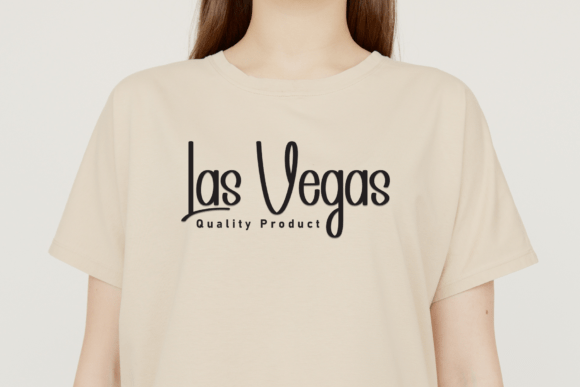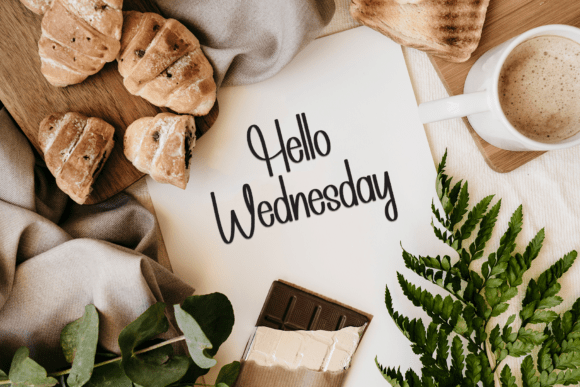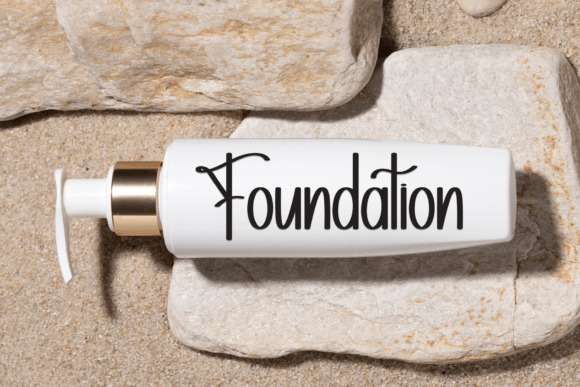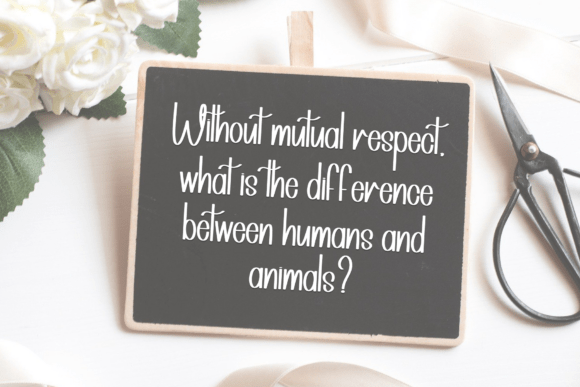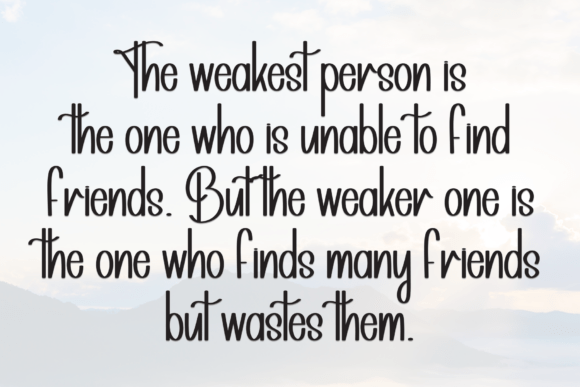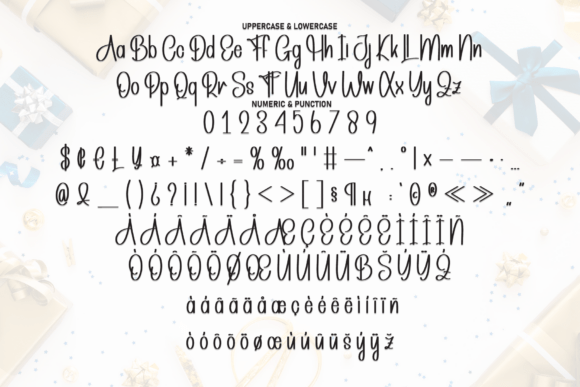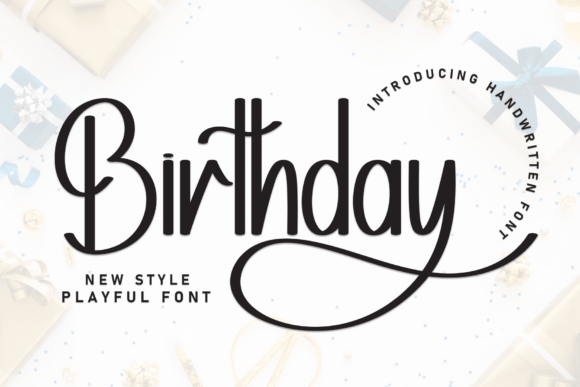
Introducing Birthday Font: The Ultimate Choice for Whimsical Designs
Are you on the hunt for a font that can add a dash of whimsy and lightheartedness to your designs? Look no further than Birthday Font, a charming and heartwarming handwritten display font that exudes an aura of friendliness. This delightful font is perfect for designers and crafters who want to infuse their creations with cuteness and fun.
The Perfect Choice for Whimsical Designs
Birthday Font is a versatile font that can be used for a variety of design projects, from enchanting wedding invitations to creative cards, and even social media graphics. Its playful and lighthearted vibe makes it an ideal choice for designers who want to add a personal touch to their creations. Whether you’re designing for a special occasion or just want to add some personality to your everyday designs, Birthday Font is the perfect companion.
What Makes Birthday Font Special?
So, what makes Birthday Font so special? For starters, its handwritten display style gives it a unique and personal feel that’s hard to replicate with other fonts. Each character is carefully crafted to exude a sense of friendliness and approachability, making it perfect for designs that require a touch of warmth and personality.
- Handwritten display style: Birthday Font features a beautiful handwritten display style that’s perfect for adding a personal touch to your designs.
- Cute and fun characters: Each character in Birthday Font is designed to be cute and fun, making it perfect for designs that require a dash of whimsy and lightheartedness.
- Perfect for wedding invitations and cards: Birthday Font is an ideal choice for wedding invitations, creative cards, and other special occasion designs.
- Lighthearted and playful vibe: Birthday Font has a lighthearted and playful vibe that’s perfect for adding a touch of personality to your designs.
How to Use Birthday Font in Your Designs
- Pair it with other fonts: Birthday Font pairs well with other fonts, such as sans-serif fonts or script fonts. Experiment with different font combinations to find the perfect look for your design.
- Use it for headings and titles: Birthday Font is perfect for headings and titles, where its playful and lighthearted vibe can really shine.
- Add some color: Birthday Font looks great with bright and bold colors. Experiment with different color combinations to find the perfect look for your design.
Why Designers and Crafters Love Birthday Font
Designers and crafters love Birthday Font for its unique and playful style. Here are a few reasons why:
- Easy to read: Despite its playful style, Birthday Font is easy to read, making it perfect for designs that require a lot of text.
- Versatile: Birthday Font is a versatile font that can be used for a variety of design projects, from wedding invitations to social media graphics.
- Unique and personal: Birthday Font has a unique and personal feel that’s hard to replicate with other fonts.
In conclusion, Birthday Font is a charming and heartwarming handwritten display font that’s perfect for designers and crafters who want to add a dash of whimsy and lightheartedness to their designs. Its playful and lighthearted vibe makes it an ideal choice for wedding invitations, creative cards, and other special occasion designs. With its easy-to-read style and versatile design, Birthday Font is a must-have font for any designer or crafter looking to add some personality to their creations.